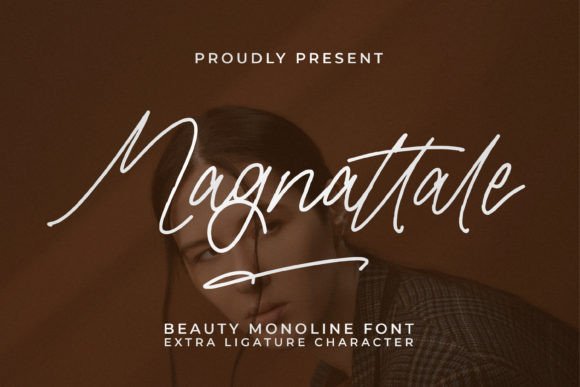
Dive into the Magnattale Font family, a script masterpiece that captivates the essence of beauty in every stroke. Designed by the creative minds at integritypestudio, Magnattale is a monoline wonder that breathes life into your creative projects.
With Magnattale, you hold the key to unlocking a world of elegance and sophistication. Its delicate lines and graceful curves dance across your designs, adding a touch of luxury to logos, branding, homeware designs, product packaging, quotes, posters, shopping bags, t-shirts, book covers, and more. Picture your designs adorned with the allure of Magnattale, captivating your audience and leaving a lasting impression.
Unleash your creativity with Magnattale and explore the endless possibilities it offers. Create striking invitations and greeting cards that exude charm and personality, adorning them with the timeless beauty of Magnattale. Design eye-catching labels, photography, and watermarks that carry a touch of elegance, leaving a lasting impact on your visual creations.
Magnattale is your gateway to a world of visual allure, transforming your designs into works of art. Whether crafting stunning business cards that command attention or creating special event designs that evoke a sense of enchantment, Magnattale is your trusted companion. Its versatility knows no bounds, adapting seamlessly to a myriad of styles and themes, ensuring your designs shine in any context.
With Magnattale, you're not just downloading a font; you're embracing a whole new realm of creativity. Let the beauty of Magnattale inspire you, ignite your imagination, and propel your designs to new heights. Elevate your brand's identity, make your products stand out, and create designs that resonate with your audience on a deeper level.